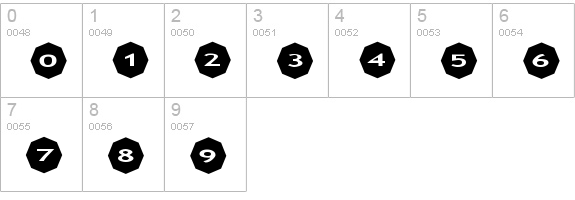
Introducing AlphaShapes Octagons 2 font - a bold and striking typeface that exudes modernity and edge. This unique font features octagonal shapes that add a geometric and futuristic flair to any design project. With its clean lines and sharp angles, AlphaShapes Octagons 2 font is perfect for making a statement and grabbing attention. The best part? This font is completely free to download at FontsMarket.com, making it accessible to all designers and creatives looking to elevate their work with a touch of sophistication and style. Whether you're working on branding, posters, or web design, AlphaShapes Octagons 2 font is a versatile choice that will surely make your designs stand out. Don't miss out on this opportunity to add a touch of modernity and creativity to your projects with AlphaShapes Octagons 2 font. Download it for free today at FontsMarket.com and let your creativity soar!